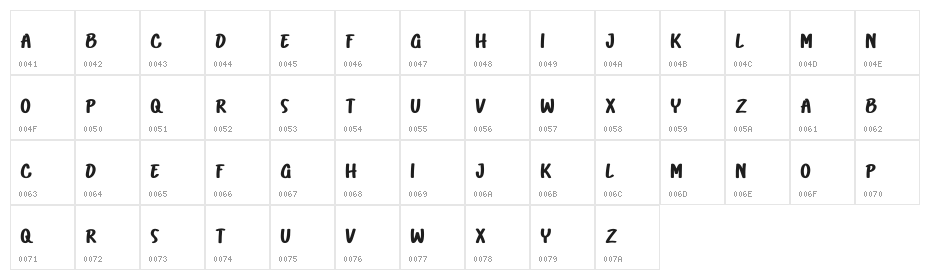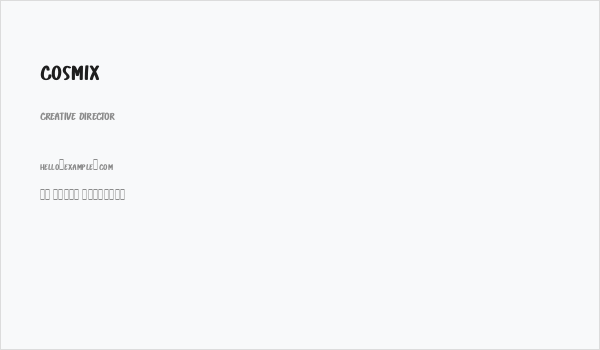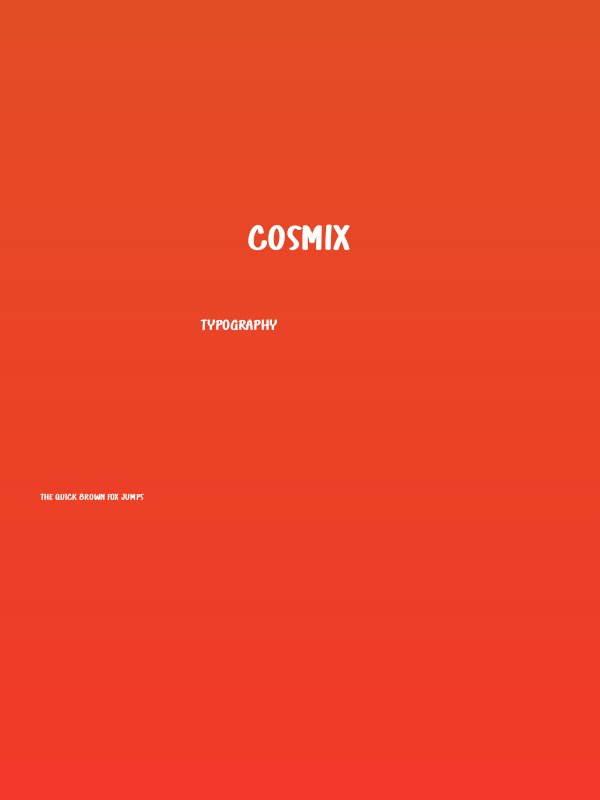
Cosmix Font
Cosmix Description
This font features a bold and playful style with rounded edges, giving it a friendly and approachable appearance. The characters are slightly condensed, which enhances readability while maintaining a unique personality. The strokes are consistent in weight, providing a uniform look across all letters. This font is well-suited for creative projects that require a touch of whimsy and fun. Its boldness ensures that it stands out, making it ideal for headlines and attention-grabbing text. The smooth curves and lack of sharp angles contribute to its modern and casual vibe.
| Proposed Projects | Ideal for children's books, playful branding, posters, and social media graphics. |